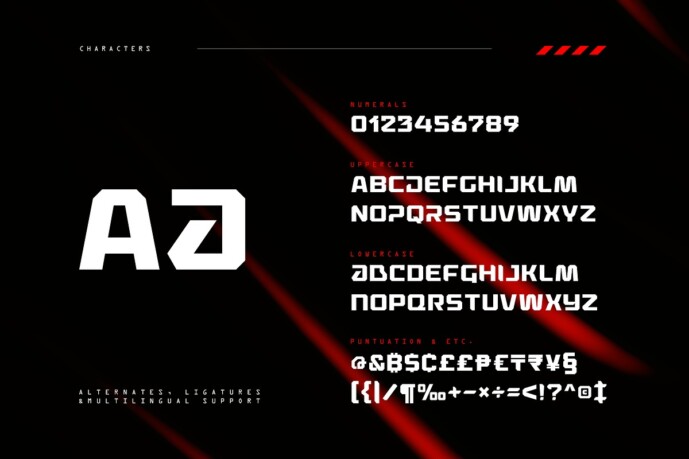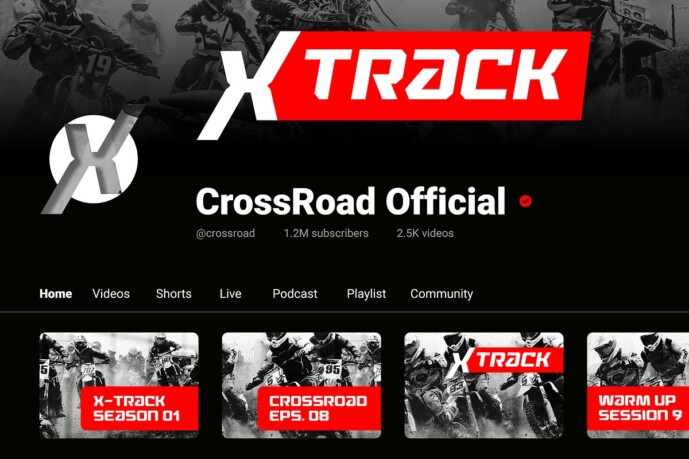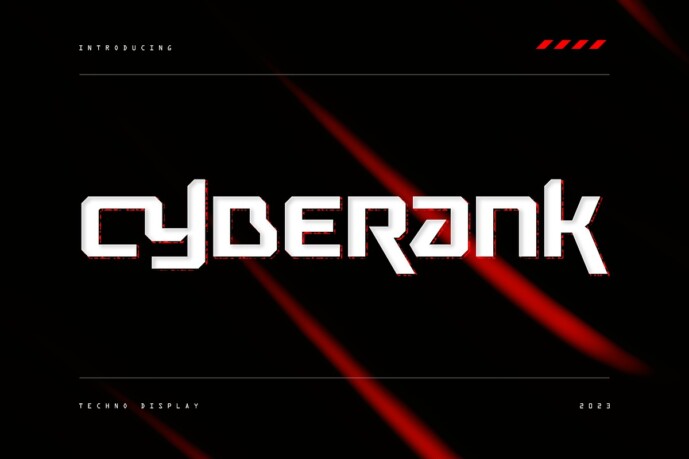
Cyberank Font
Cyberank Font – techno display typeface is a bold geometric with sharp angles typeface to unleash creativity and transform your designs! Strong and impactful characters with a futuristic look create a powerful visual impact that will leave a lasting impression on your audience.